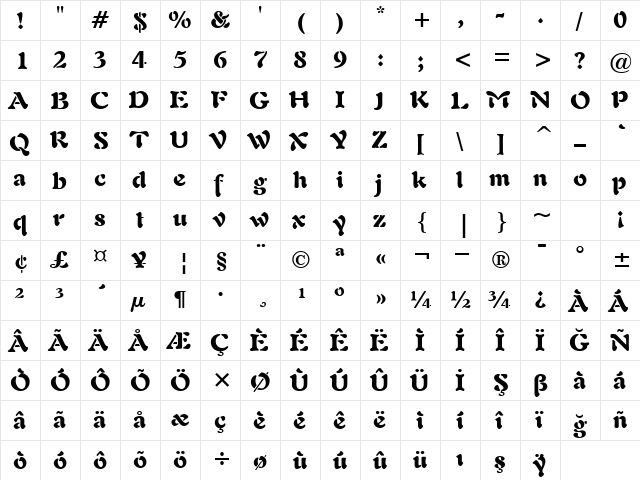
00555 Regular
Design Context for 00555 Typeface
00555 offers clean, dependable letterforms without strong stylistic allegiance, making it a practical choice for designers who need flexibility.